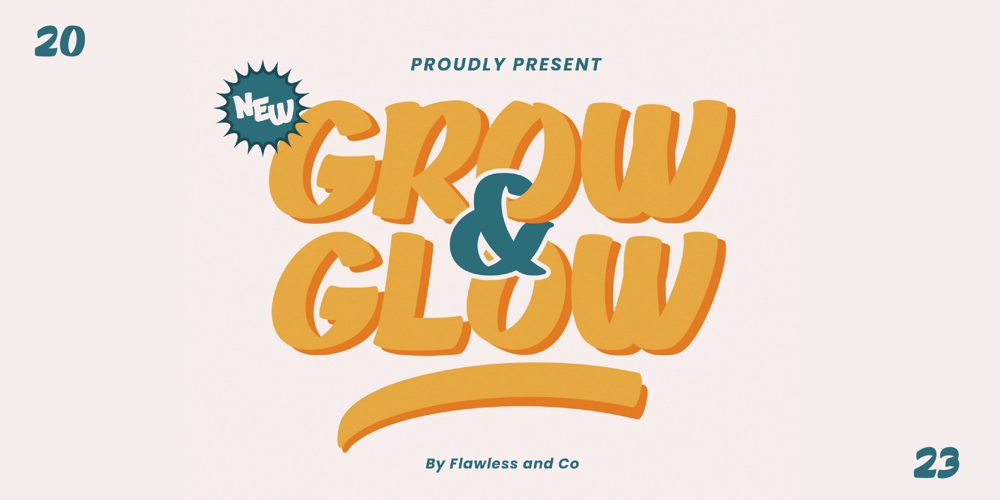
Grow and Glow Font Family was designed by Achmad Yani and published by Flawlessandco. Grow and Glow contains 1 styles and family package options. Grow and Glow – A Playful Display Font, a whimsical display font designed to infuse your designs with a sense of joy and playfulness.There’s some connected letters and some alternates that suitable for any graphic designs .This font support for some multilingual. Also contains uppercase A-Z and lowercase a-z, alternate character, numbers 0-9, and some punctuation.If you need help, just write me! Thanks so much for checking out my shop!